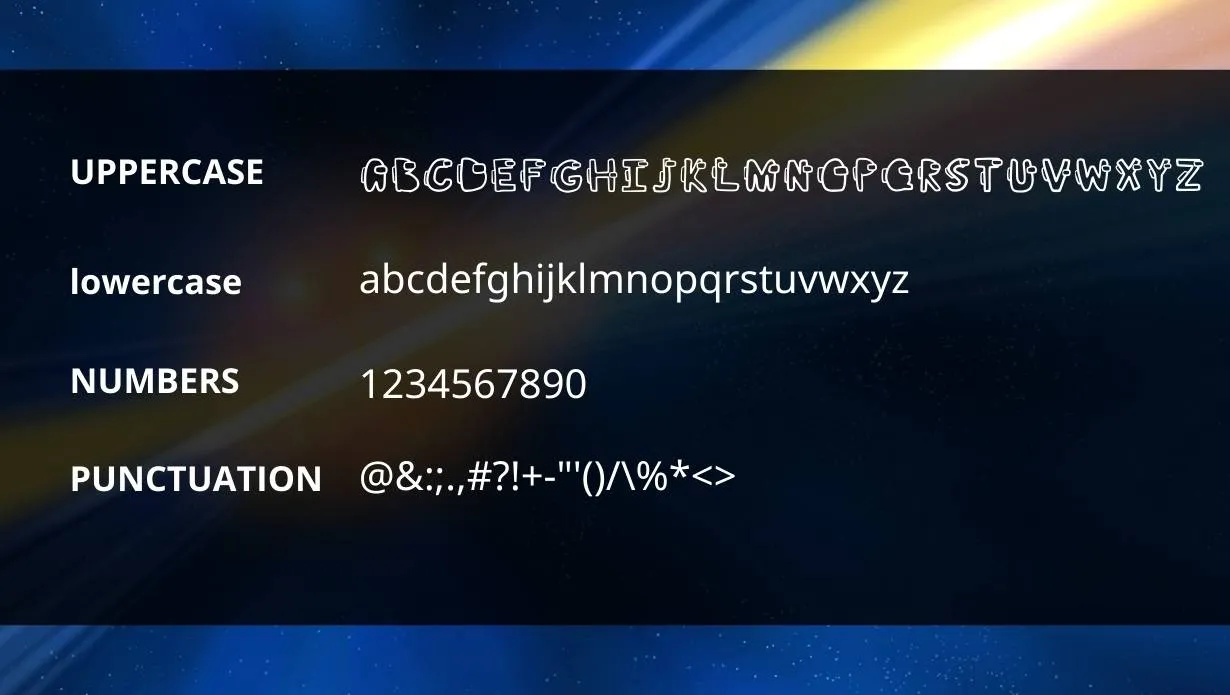
Among Us Font is a typeface specifically designed for the video game Among Us. The Typeface was created by Tal Leming and is available in three weights: regular, bold, and black.
Among Us Font Info
Name | Among Us Font |
Designer | Tal Leming |
Style | Fancy |